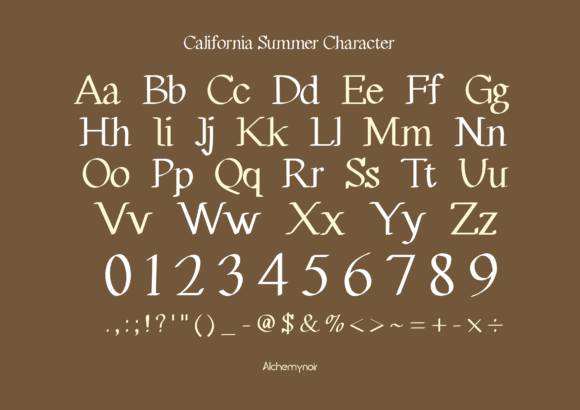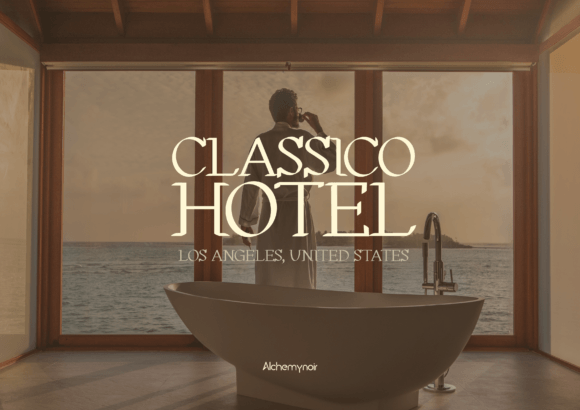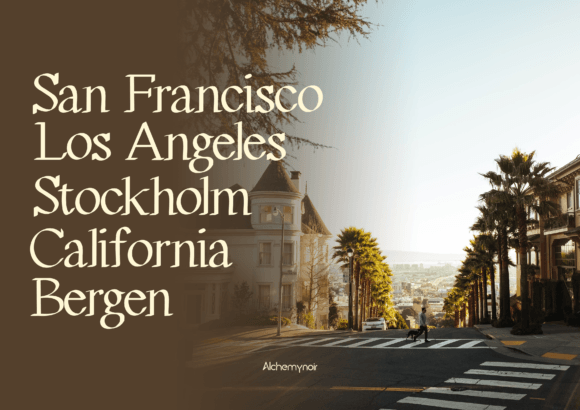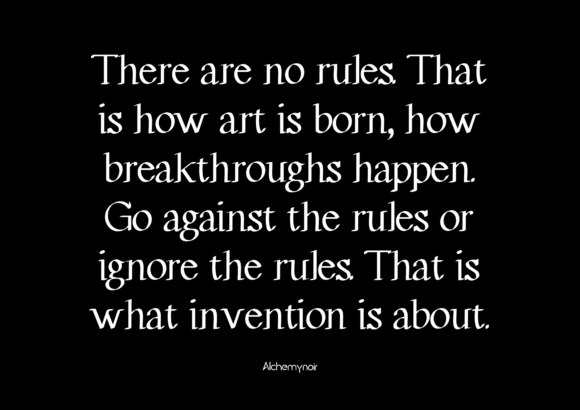
The Ultimate Guide to California Summer Font: Elevate Your Design Game
Ah, the elusive perfect font. You know, that one typeface that makes your design project go from meh to mesmerizing. I’ve been there, done that, and got the t-shirt (which, coincidentally, was designed with a not-so-perfect font). But today, I want to share with you a gem that has become a staple in my design toolkit: California Summer Font.
A Personal Encounter with Design Frustration
I recall working on a branding project for a luxury client, and the brief was to create something elegant, simple, and cool. Sounds easy, right? Wrong! I scoured font libraries, but nothing seemed to fit the bill. That was until I stumbled upon California Summer. Its simple serif design and luxurious feel were exactly what I needed. I was hooked.
An Honest Review of California Summer Font
So, what makes California Summer Font a cut above the rest? Let’s dive into the good stuff and, well, a few quirks.
• ✅ Elegant and Simple Design: Perfect for luxury brands or designs that require a touch of sophistication.
• ✅ Versatile: Great for branding, posters, apparel, merchandise, stickers, logos, and more.
• ✅ Easy on the Eyes: The simple serif design makes it highly legible, even at smaller sizes.
• ⚠️ Limited Extras: Don’t expect a vast array of stylistic alternates or an extensive character set. It keeps things simple, which is great, but might not offer everything some projects need.
• ⚠️ Not for Body Text: While legible, its elegant design shines best in headlines or short texts. For long-form content, you might want to pair it with a more traditional font.
California Summer supports OpenType features, which can elevate your typography. Look for:
• Ligatures: Combine letters for a unique look.
• Stylistic Alternates: Some letters may have alternate designs for varied aesthetics.
Alternatives to California Summer Font
While California Summer is fantastic, it’s always good to have options. Here are a few alternatives and when to use them:
• Playfair Display: For when you need something a bit more ornate but still elegant.
• Lato: A versatile sans-serif that’s great for digital use and pairs well with California Summer.
• Merriweather: A classic serif for body text that pairs well with California Summer for headlines.
• Raleway: Another elegant sans-serif with a luxurious feel, great for headings.
The Story Behind California Summer Font
California Summer was designed with the intention of capturing the laid-back, yet sophisticated vibe of, well, a California summer. The designer aimed to create a typeface that embodies luxury, simplicity, and a cool factor, making it perfect for a wide range of design projects.
Q: Is California Summer suitable for body text?
A: While it’s legible and elegant, California Summer shines best in headlines or short texts. For long-form content, consider pairing it with a more traditional serif font.
And there you have it — a comprehensive guide to California Summer Font. Whether you’re a designer, crafter, or creative hobbyist, this typeface can elevate your projects with its elegant, simple, and cool design. So go ahead, give it a try, and see how it can transform your designs!